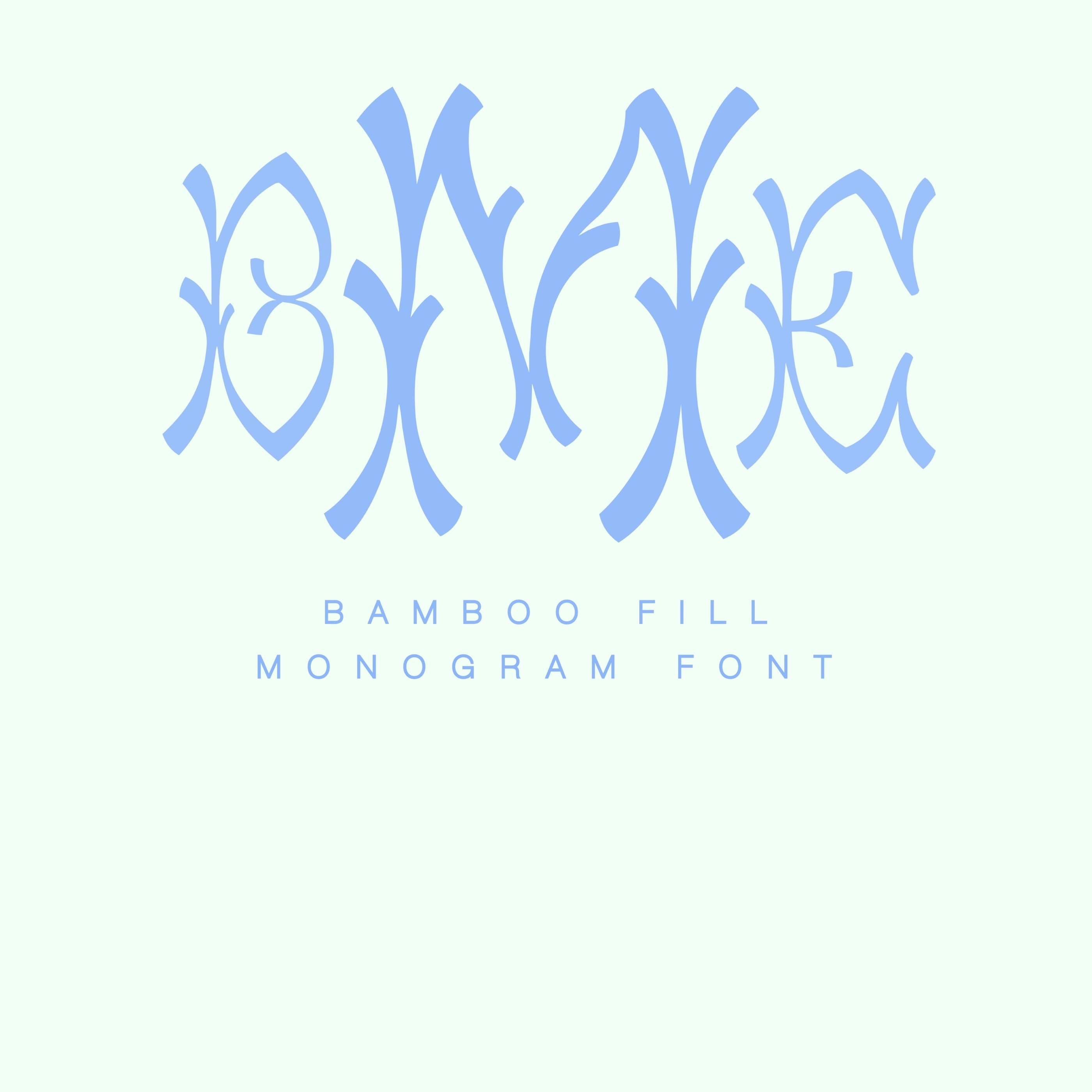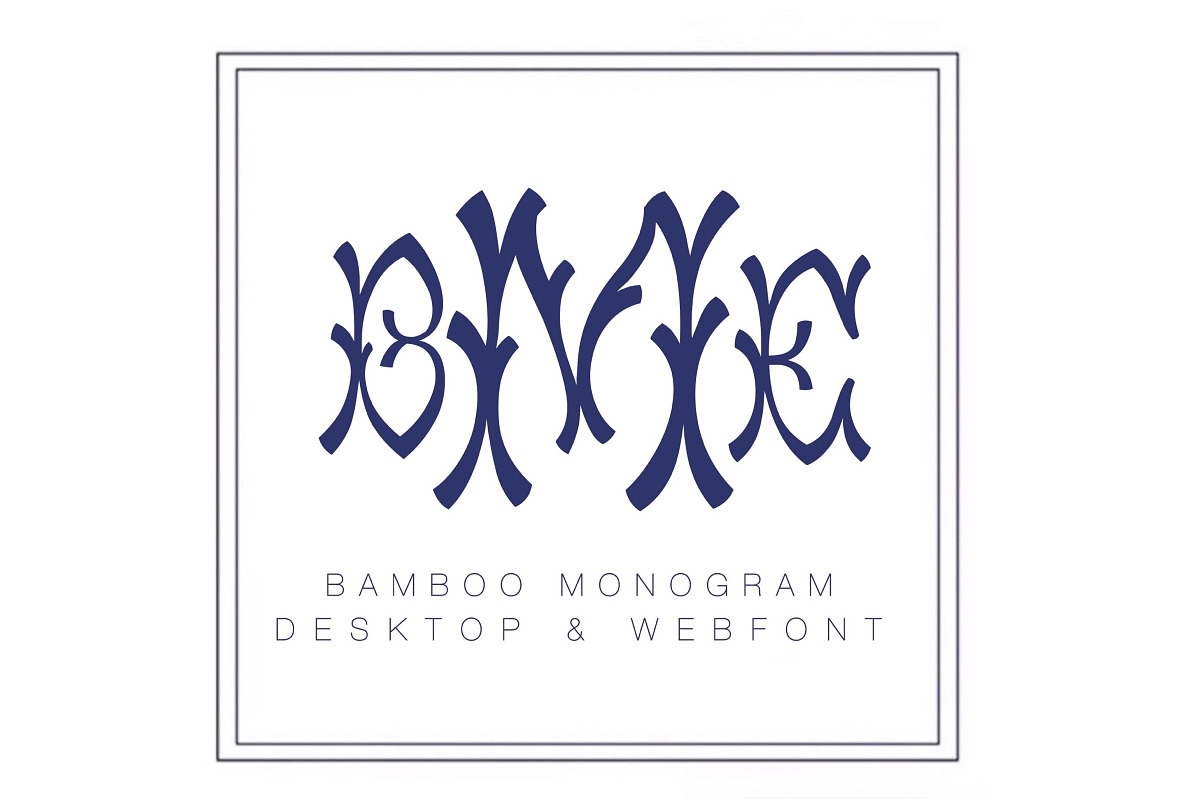
The Bamboo Fill Typeface font includes 26 uppercase letters in two sizes to create a monogram as shown in the first image. The Typeface files include Desktop OTF, TTF, and EOT and WOFF web fonts.